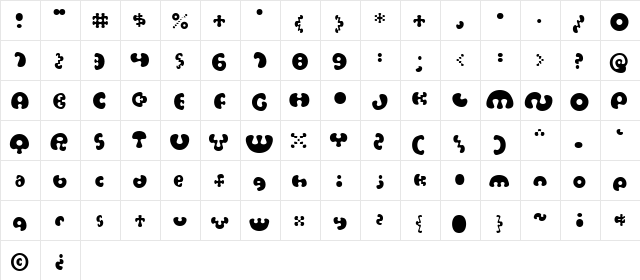
Perturb the Outline Curved Regular
Design Context for Perturb the Outline Curved Typeface
Perturb the Outline Curved is built around its visual character rather than neutral utility — its distinctive forms are designed to make an impression at display sizes.